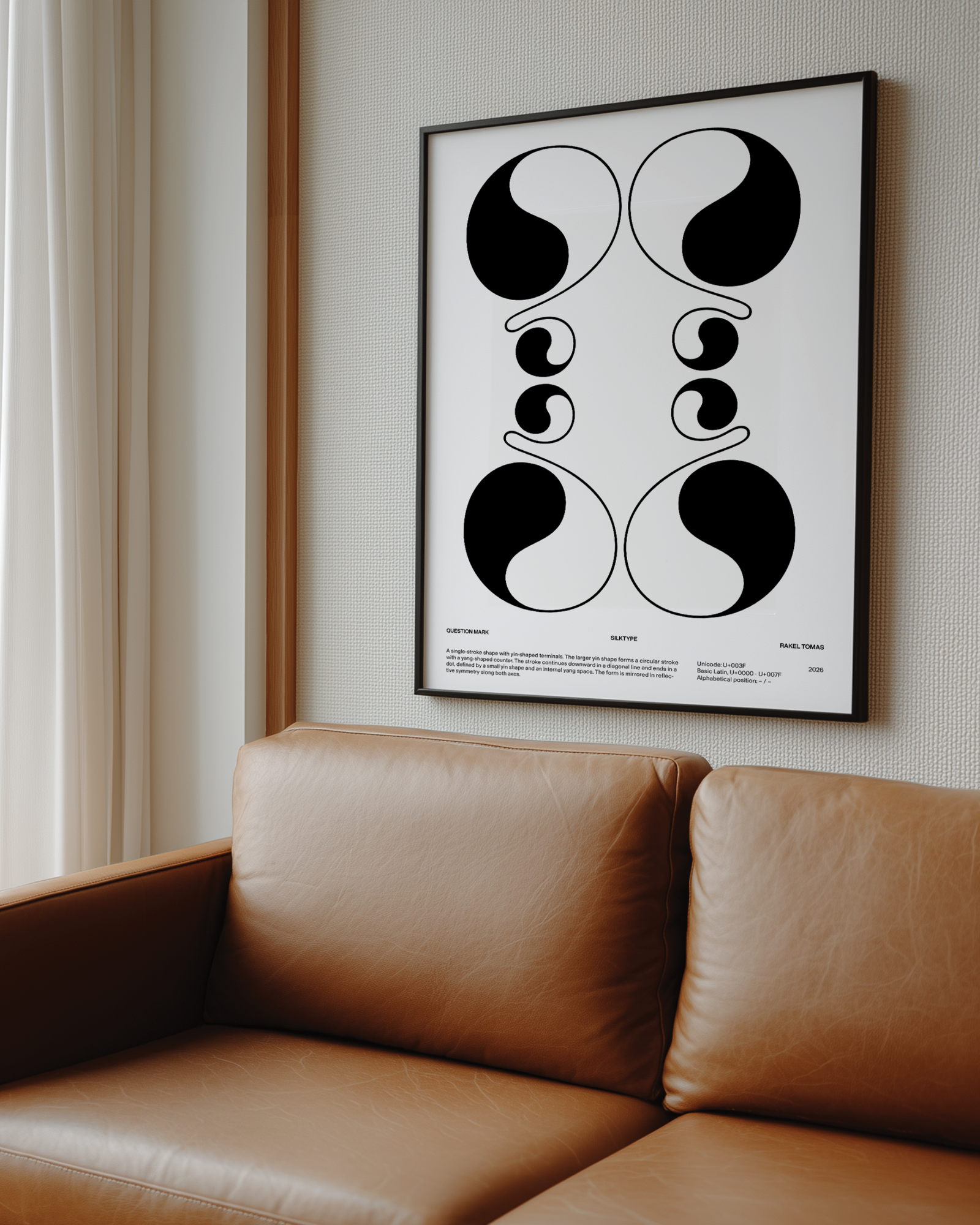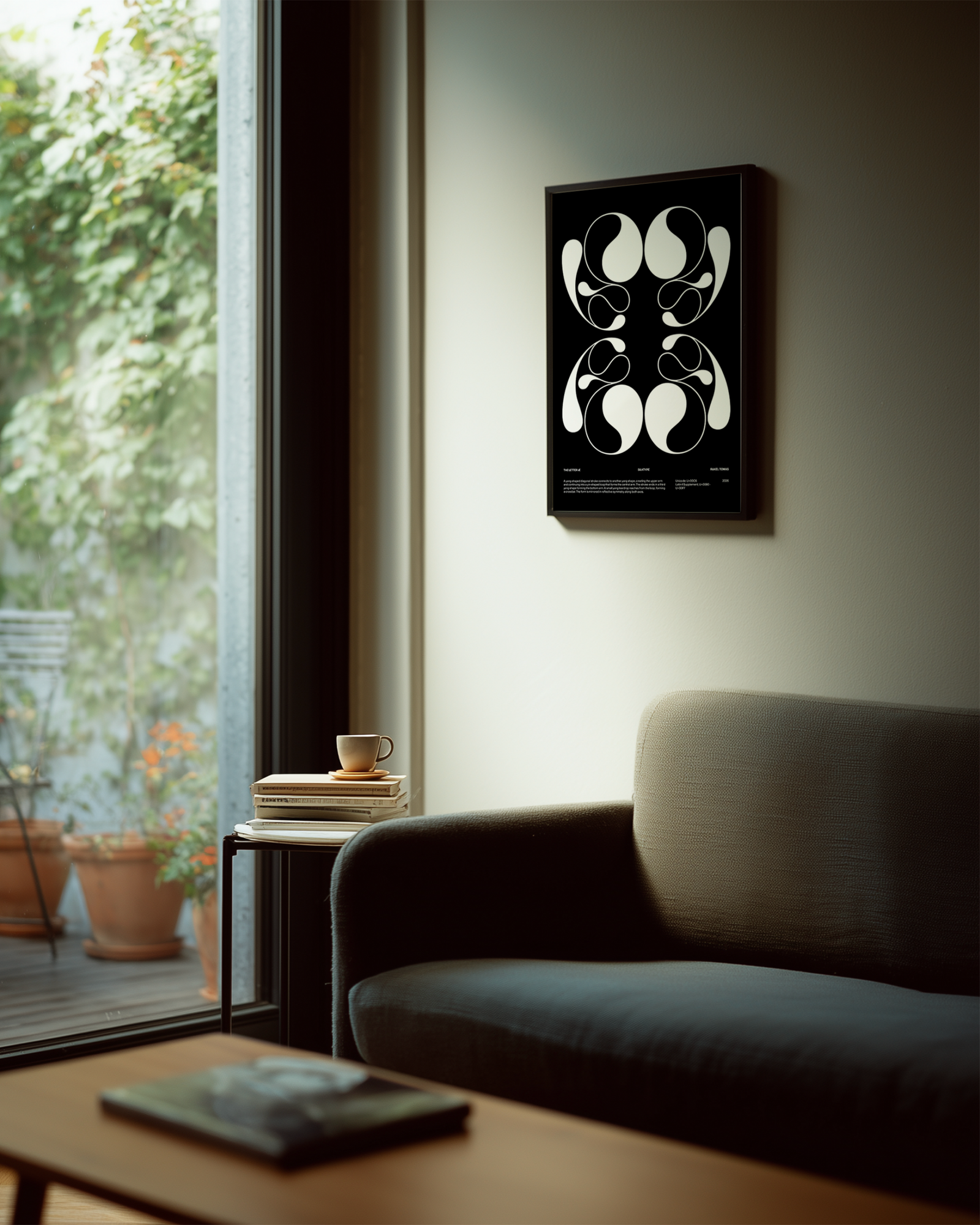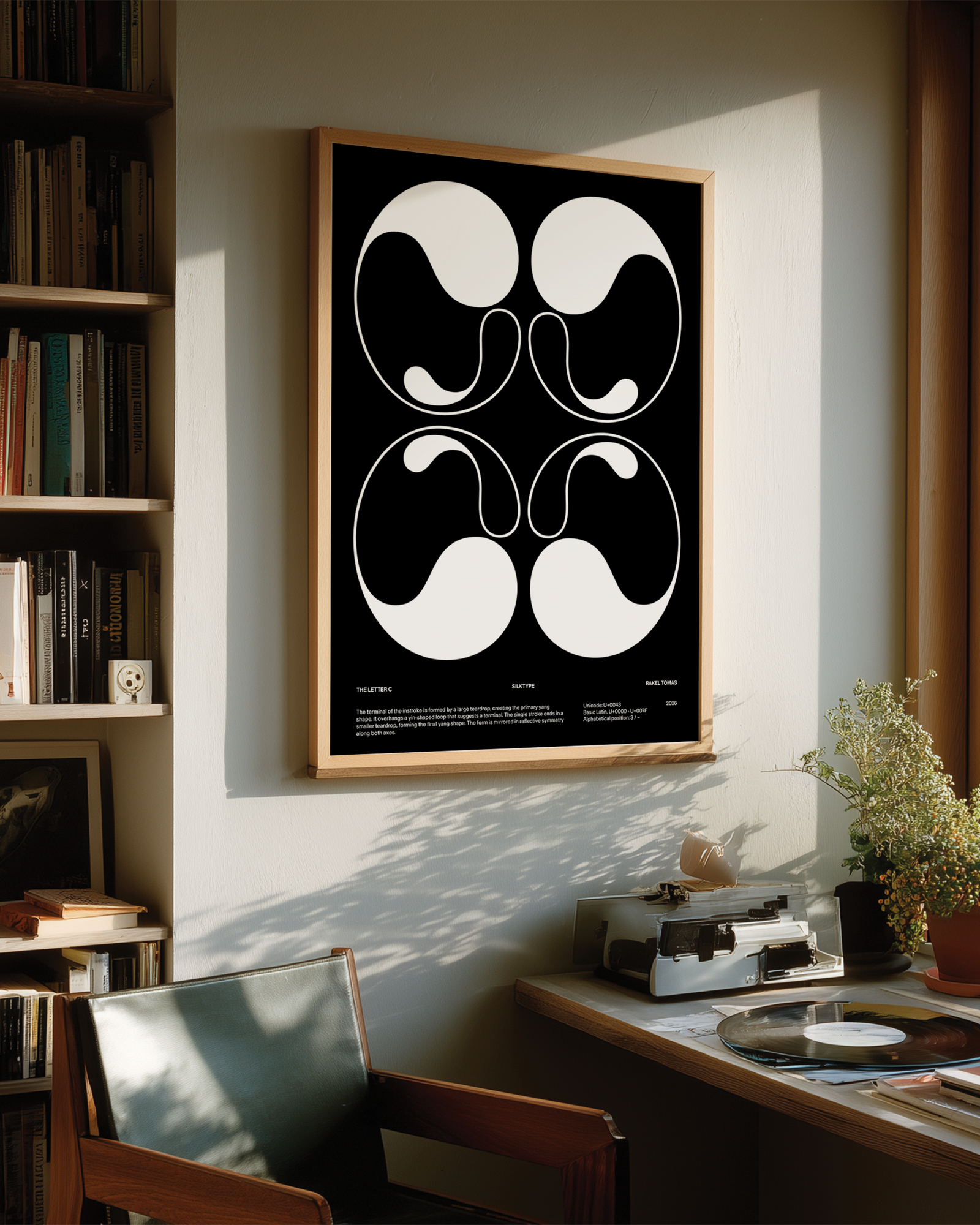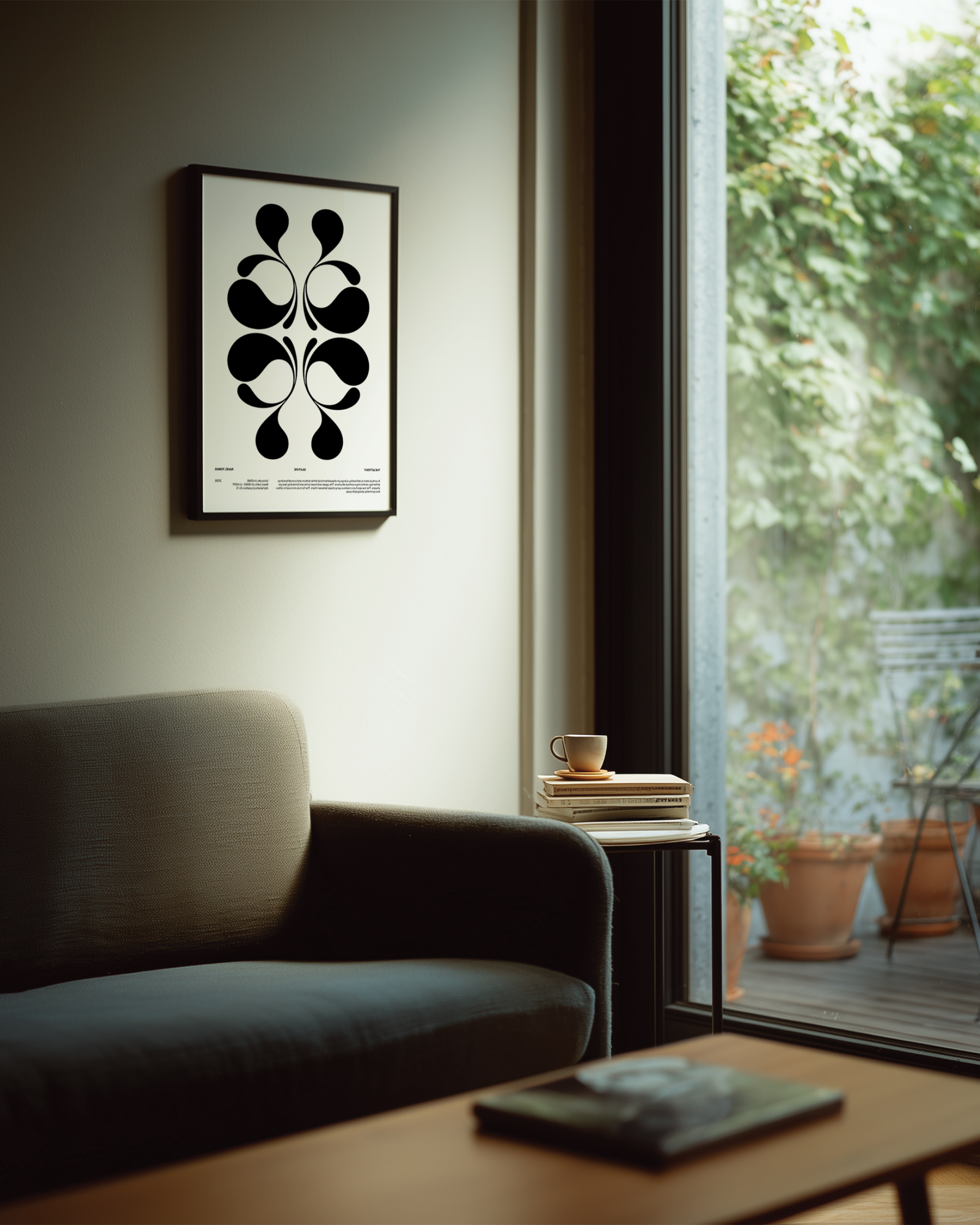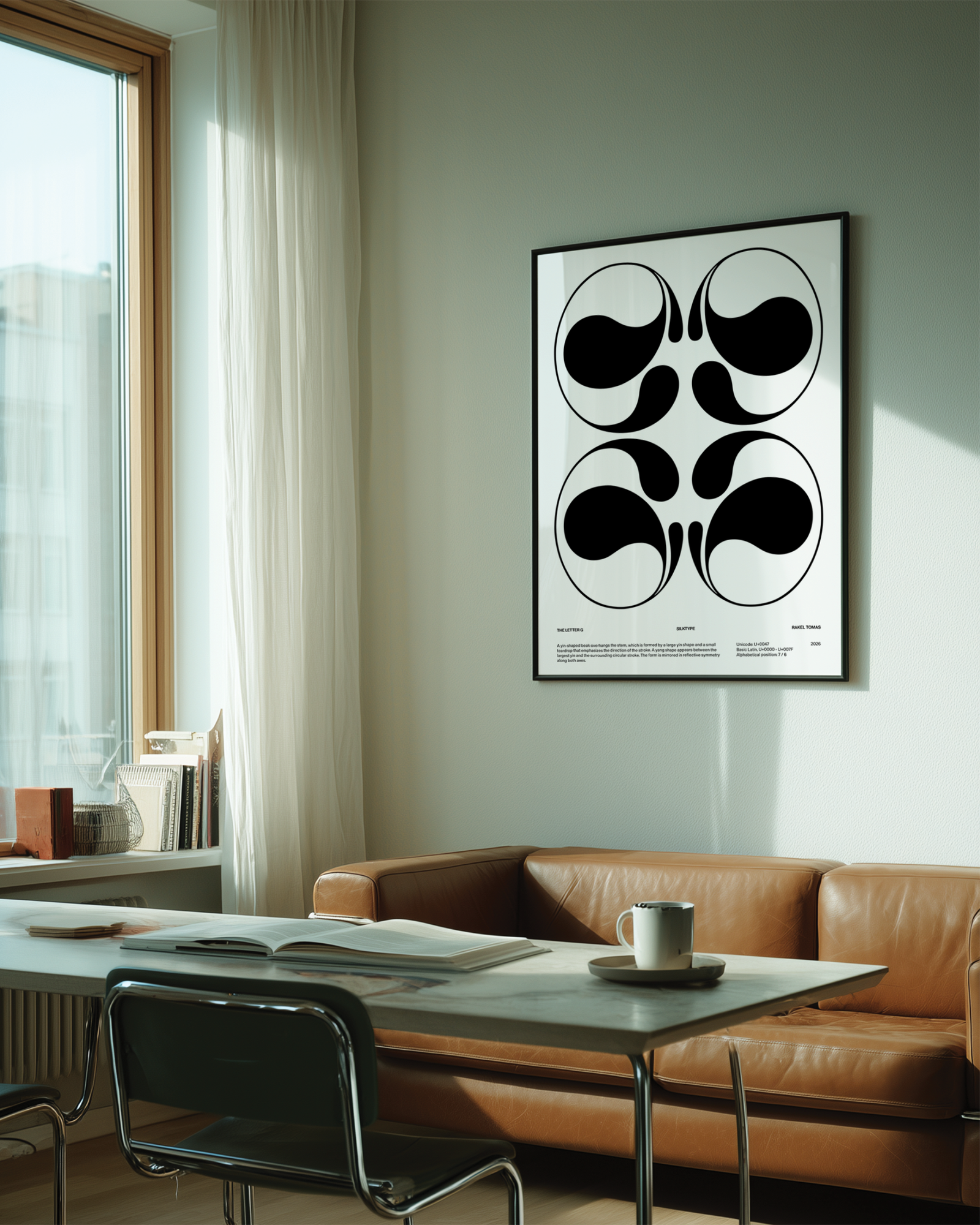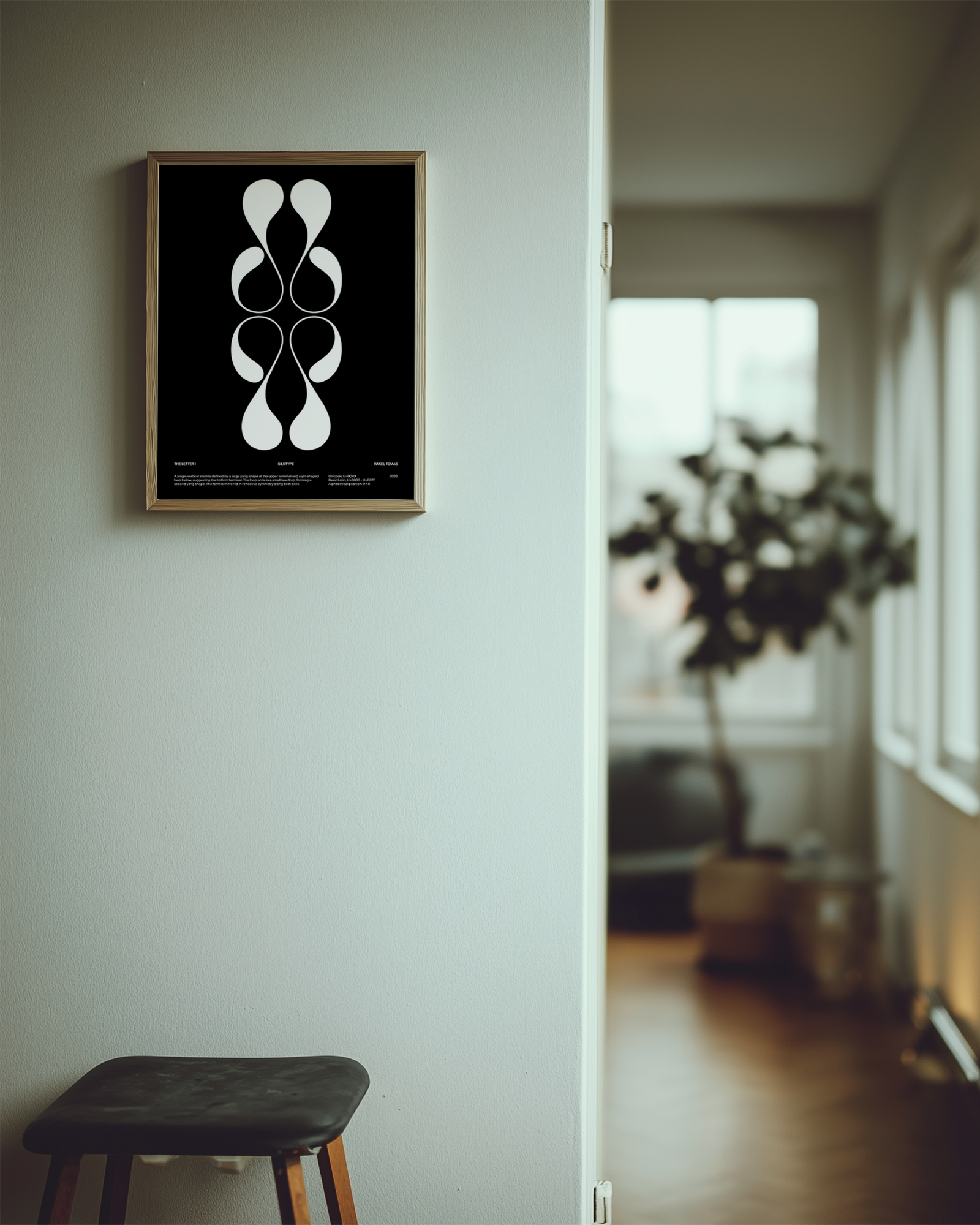
This poster series includes 30 glyphs, 28 letters and 2 symbols, inspired by the concept of yin and yang. Each form explores the balance between positive shape and negative space.
In typography, the space around and within letters is just as important as the strokes themselves. This project highlights that relationship by treating every glyph as a balance between form and counterform.
The series was developed during a period of travel in Thailand, influenced by the principles of yin yoga. The focus on contrast and balance shaped the approach to these letterforms, giving equal weight to what is drawn and what is left open.